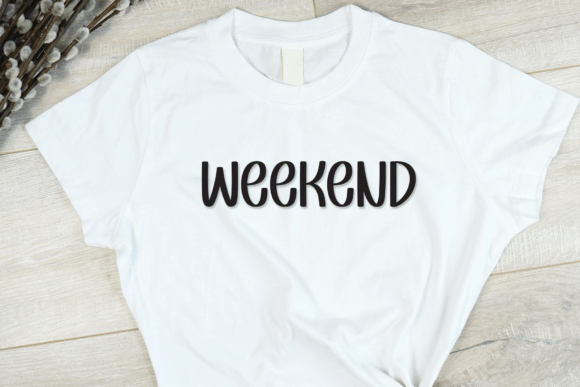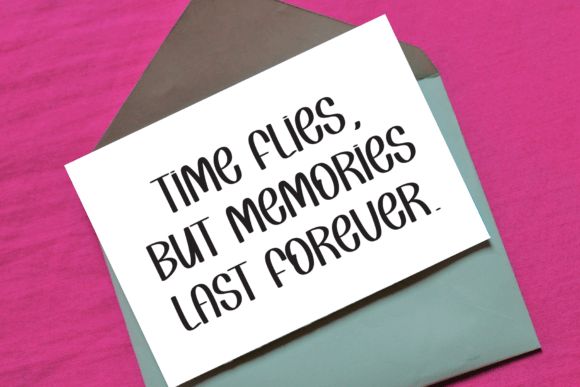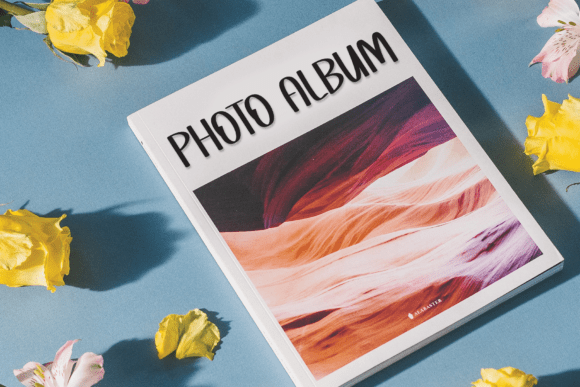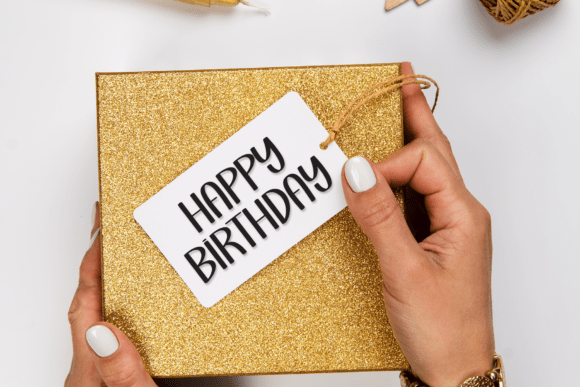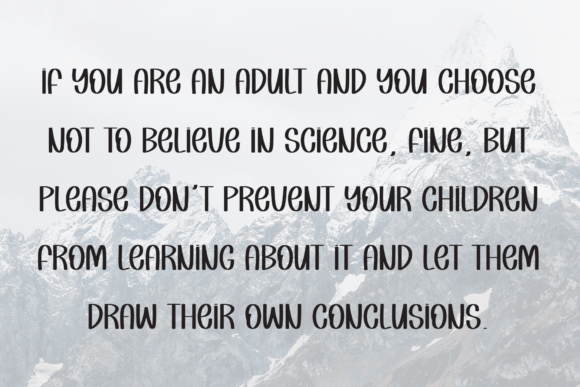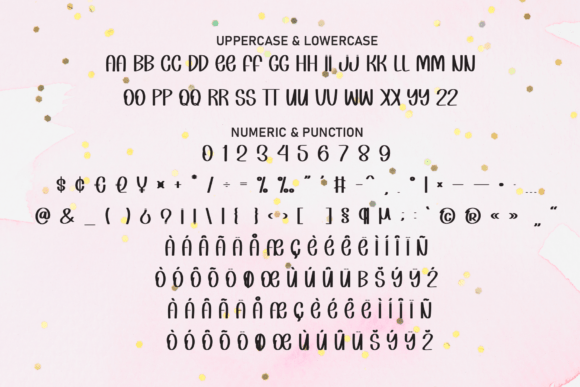
Cute Barbie Font: The Perfect Blend of Simplicity and Friendliness
In the world of typography, fonts play a crucial role in conveying the tone and personality of a brand or design. For designers and crafters looking for a font that combines simplicity with a friendly, approachable vibe, Cute Barbie Font is an excellent choice. This casual and neat display font has gained popularity for its clean lines, balanced letterforms, and subtle rounded edges, making it perfect for a wide range of design applications.
The Essence of Modern Handwritten Typography
Cute Barbie Font embodies the essence of modern handwritten typography with a polished finish. Its clean lines and balanced letterforms give it a crisp structure, while the subtle rounded edges add a touch of warmth and friendliness. This font is ideal for designers who want to create a modern and approachable look for their branding, headlines, packaging, and digital content.
Key Features of Cute Barbie Font
- Clean Lines: Cute Barbie Font features clean lines that give it a modern and sleek look.
- Balanced Letterforms: The font has balanced letterforms that ensure clarity and readability.
- Subtle Rounded Edges: The subtle rounded edges add a touch of warmth and friendliness to the font.
- Versatile Style: Cute Barbie Font has a versatile style that makes it suitable for a wide range of design applications.
Design Applications for Cute Barbie Font
Cute Barbie Font is an excellent choice for various design applications, including:
- Branding: Use Cute Barbie Font to create a friendly and approachable brand identity.
- Headlines: The font is perfect for creating attention-grabbing headlines that convey a modern and sleek look.
- Packaging: Cute Barbie Font is ideal for packaging design, adding a warm and inviting touch to product labels and packaging.
- Digital Content: The font is suitable for digital content, including social media graphics, blog posts, and website headers.
Why Choose Cute Barbie Font?
There are several reasons why designers and crafters should consider Cute Barbie Font for their design projects:
- Clarity and Readability: The font delivers clarity and readability, making it perfect for digital content and print materials.
- Warm and Inviting: Cute Barbie Font adds a warm and inviting touch to any design, making it ideal for brands that want to convey a friendly and approachable personality.
- Versatility: The font has a versatile style that makes it suitable for a wide range of design applications.
- Modern and Sleek: Cute Barbie Font has a modern and sleek look that makes it perfect for brands that want to convey a contemporary and stylish image.
Tips for Using Cute Barbie Font
Here are some tips for using Cute Barbie Font effectively in your design projects:
- Pair with Other Fonts: Experiment with pairing Cute Barbie Font with other fonts to create a unique and visually appealing typography.
- Use for Headlines and Titles: Use Cute Barbie Font for headlines and titles to create a attention-grabbing and modern look.
- Adjust Font Size and Color: Adjust the font size and color to ensure that the text is readable and visually appealing.
Cute Barbie Font is a versatile and modern display font that combines simplicity with a friendly, approachable vibe. Its clean lines, balanced letterforms, and subtle rounded edges make it perfect for a wide range of design applications, including branding, headlines, packaging, and digital content. With its crisp structure and warm and inviting style, Cute Barbie Font is an excellent choice for designers and crafters looking to add a touch of modernity and friendliness to their designs.